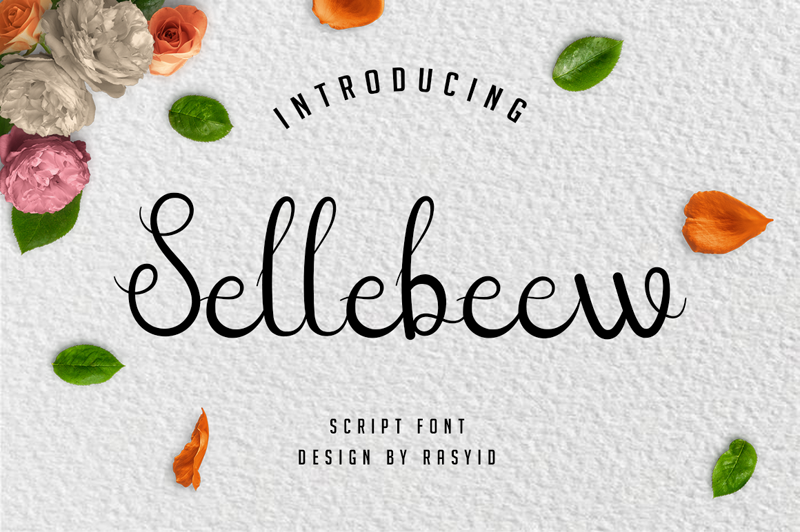
Font name: | Sellebeew |
Author: | Rasyid Annas |
Sellebeew is elegant script font which can be used for various purposes such as: lettering, wedding cards and much more! NOTE: This demo font is for PERSONAL USE ONLY! But any donation are very appreciated. Paypal account for donation : sumali65715@gmail.com Link to purchase full version and commercial license : https://www.creativefabrica.com/product/sellebeew/ref/193408/ |